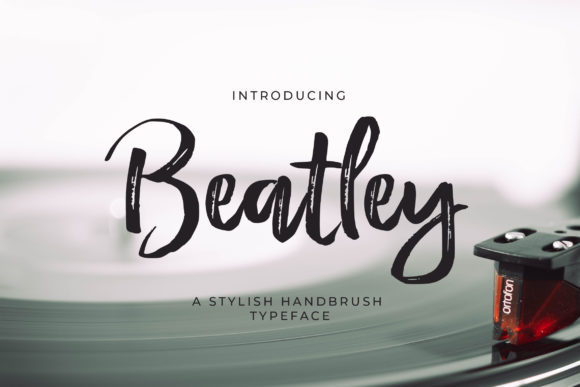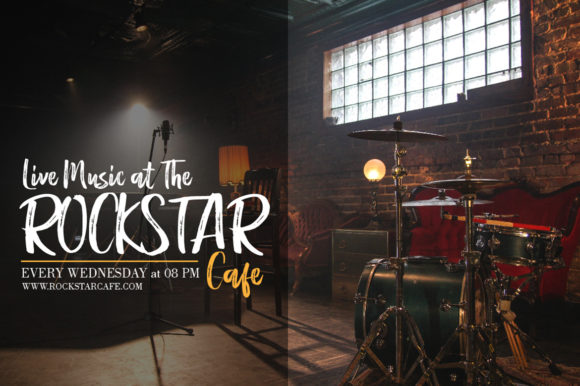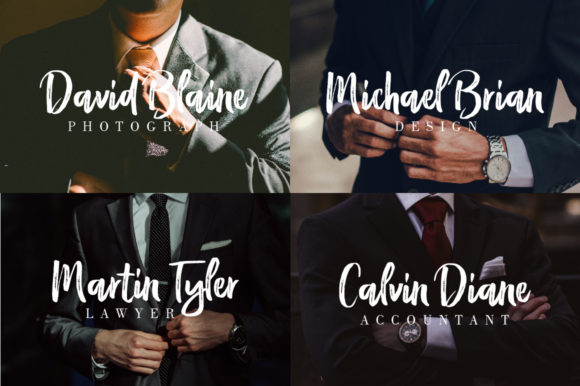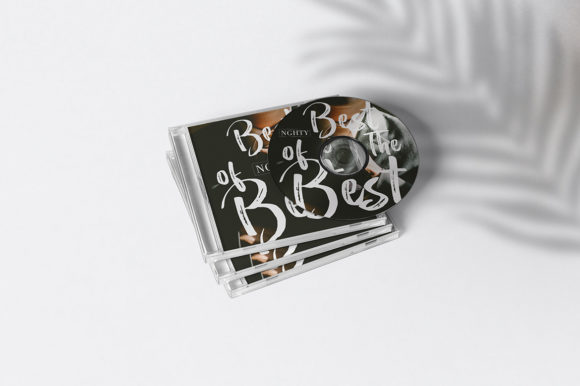
HomeScript FontsBeatley Font Script Fonts Beatley Font FacebookXPinterestWhatsApp Beatley Font Poster 2 Beatley Font Poster 3 Beatley Font Poster 4 About Beatley Font Beatley is a charming and authentic script that radiates adventure. DOWNLOAD NOW People also explored Haloha Font Kenangan Font Hesthia Austine Font La Rouge Font Describe Font Gaston Font Cattleman JNL Font Cutesy Font Broadside 311 0 TagsBeatley Font Previous articleAmel FontNext articleHolidays Font LEAVE A REPLY Cancel reply Comment: Please enter your comment! Name:* Please enter your name here Email:* You have entered an incorrect email address! Please enter your email address here Website: Save my name, email, and website in this browser for the next time I comment. Personal Use Free Boronic Personal Use Free Read more about this font Zojihun Personal Use Free Read more about this font Doriath Personal Use Free Read more about this font Bajt Rounded Personal Use Free Read more about this font BLOG To increase your work productivity, choose the most readable fonts. In today's fast-paced work environment, where digital communication and information consumption are integral to our daily routines, the choice of fonts can significantly impact... Top 10 Handwritten Fonts That Elevate Your Designs Free vs Paid Fonts: Why Investing in Premium Fonts Is Worth It Exploring Font Trends